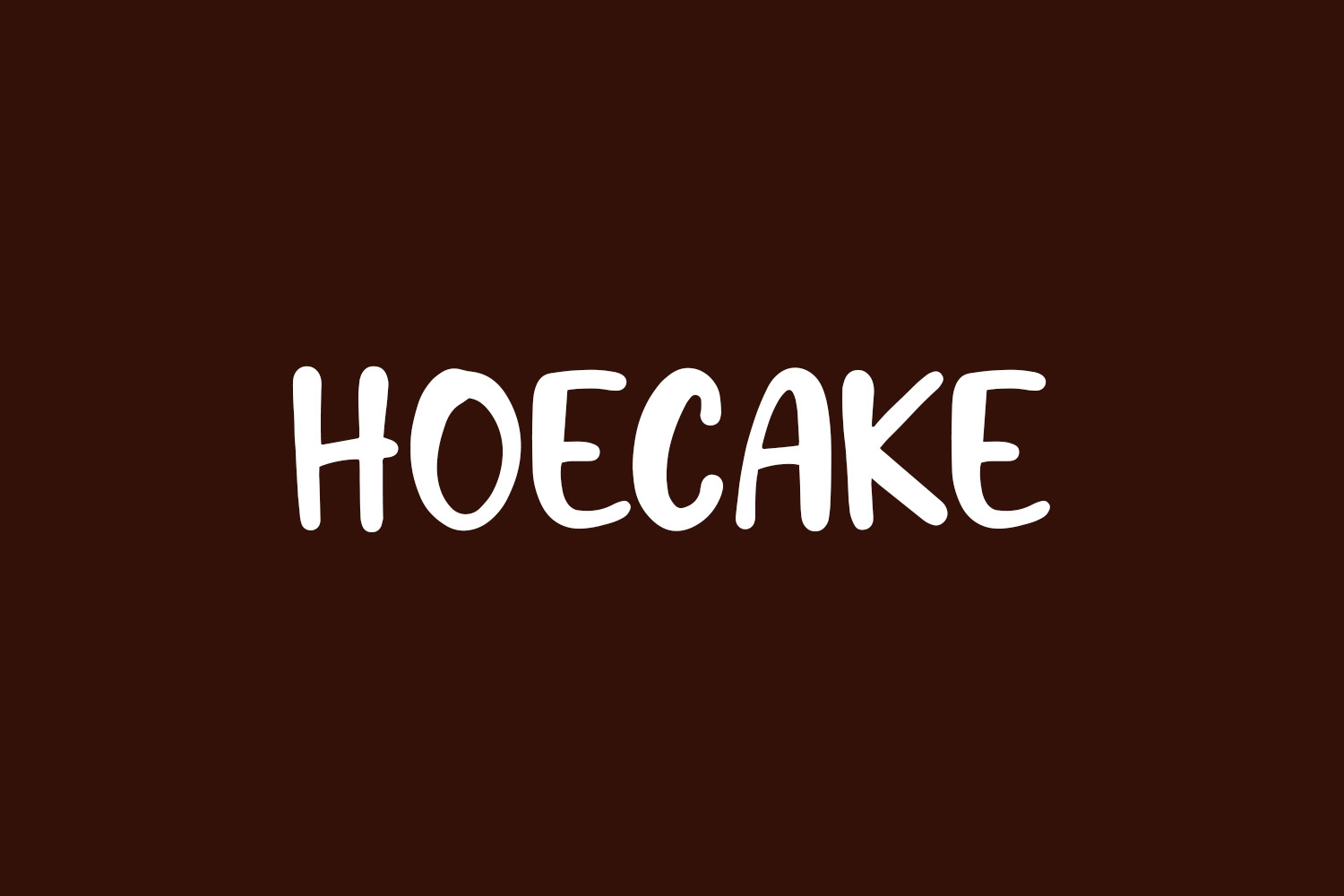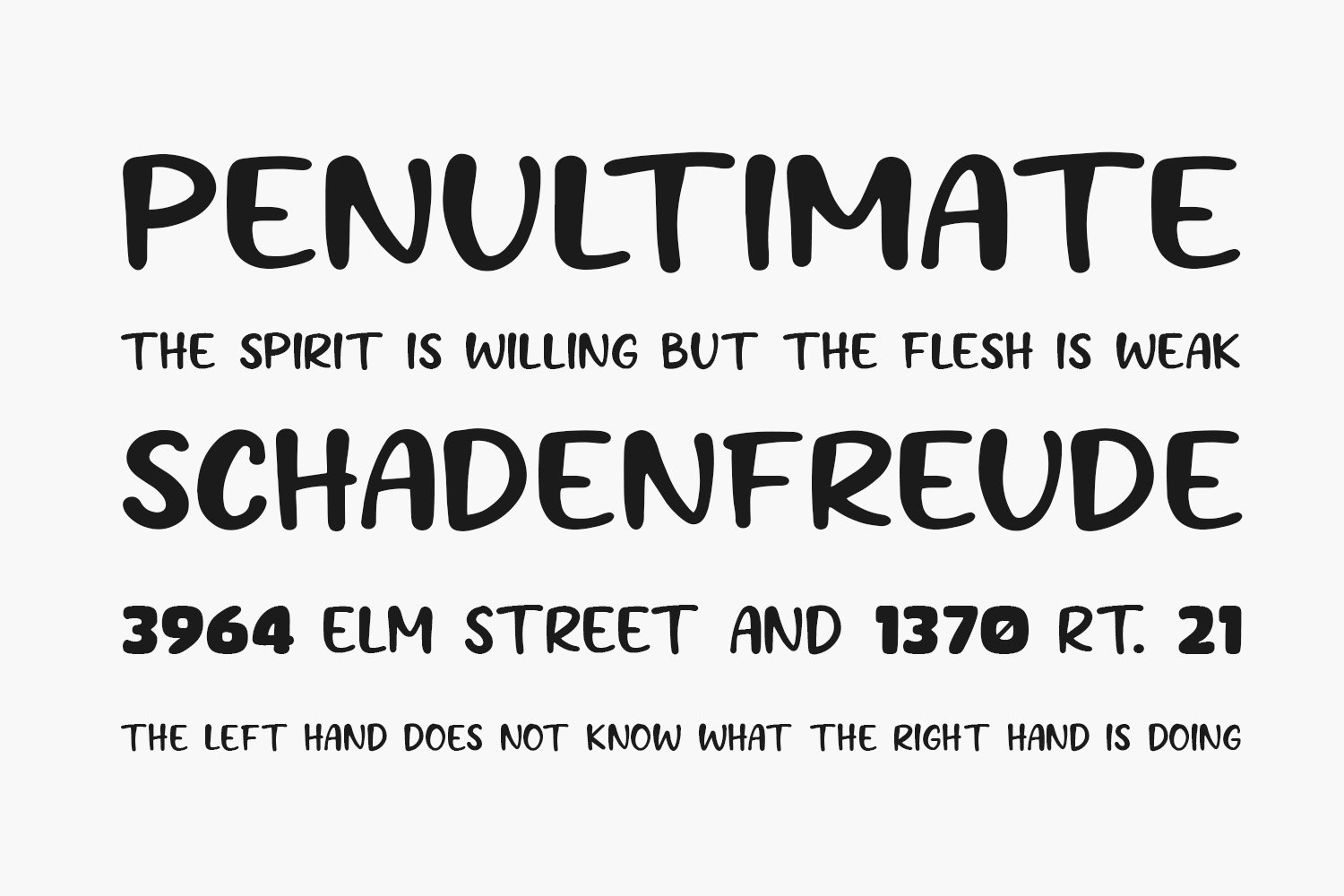
Meet Hoecake Free Font, a display font radiating positivity and character. This friendly typeface exudes charm and style, making it perfect for a variety of applications including quotes, headings, logos, branding, merchandise, and websites. Elevate your content with the unique and upbeat vibe of Hoecake. Hoecake Free Font was designed by Vilogsign and is free for personal use only. Please purchase the full version for commercial use.